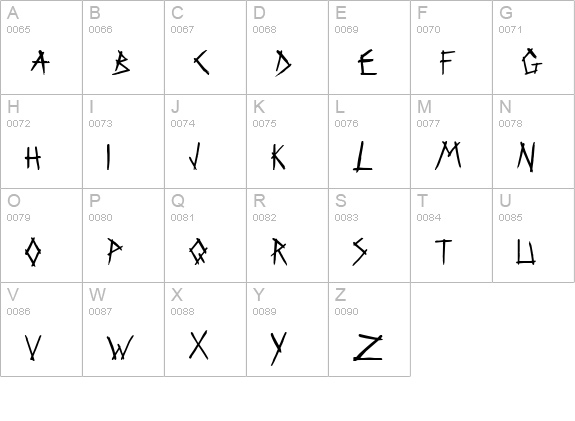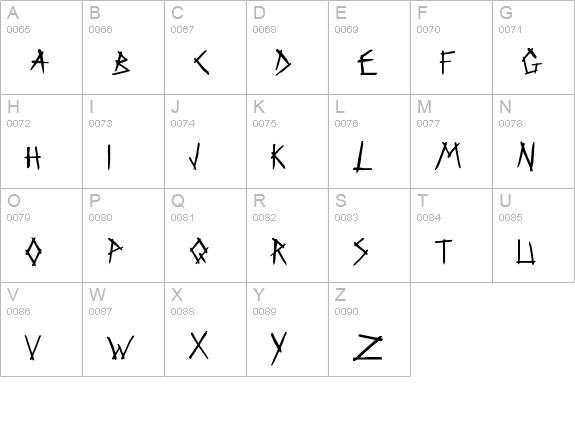
Fear AOE Font Details
Fear AOE font exudes an aura of mystery and intrigue, making it perfect for conveying a sense of foreboding and unease in your designs. Its bold and jagged letterforms give off a sense of danger and tension, while still maintaining a stylish and modern appeal. This unique font is ideal for creating eye-catching headlines, posters, and other graphic projects that require a touch of fear-inducing flair. Best of all, Fear AOE font is available for free download at FontsMarket.com. So you can easily add this impactful typeface to your collection without breaking the bank. Don't miss out on the opportunity to harness the power of Fear AOE font in your next design project. Download it today and unleash your creativity with this striking and versatile typeface.